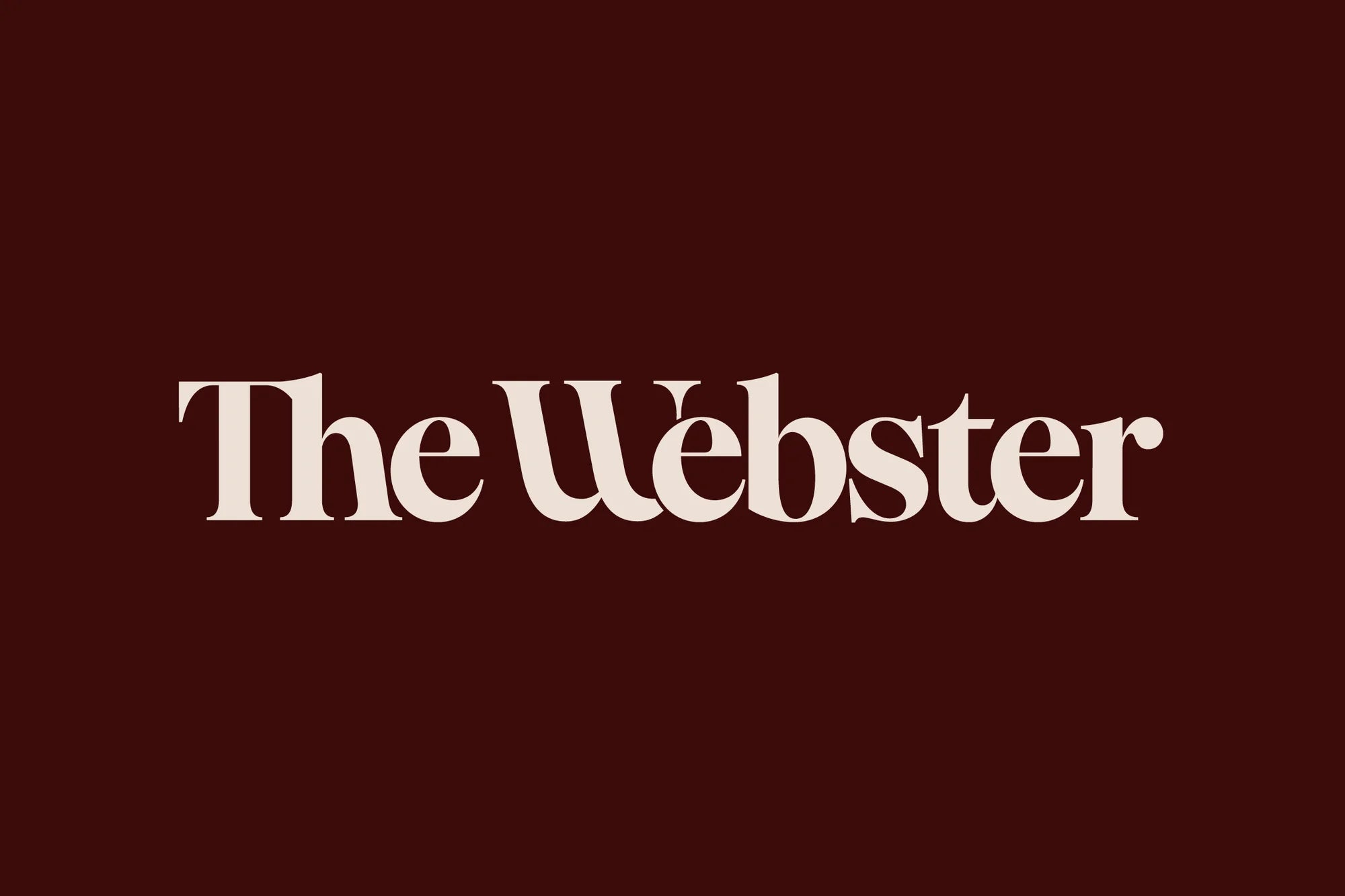
01-20 designs The Webster’s brand on presence, wonder and connection.
London-based agency 01-20 was commissioned to create its brand positioning, identity and content, along with a set of bespoke illustrations by Debora Szpilman. The brand spans two cities, with each property shaped by its neighbourhood while sharing a cohesive identity.
The identity revolves around an idea 01-20 calls “the magic of presence.” “It emerged very early in the process,” explains Senior Partner Carla Pia Sutil. “We were observing a wider cultural tension: people are more connected than ever digitally, yet often less emotionally or socially present. Hospitality has become increasingly transactional or performative, particularly within luxury, and we wanted The Webster to push against that.” For the creative direction, the studio looked to Gabriel García Márquez, the Colombian writer associated with magical realism – the literary genre that takes a grounded, real setting and introduces subtle moments of wonder. Márquez stayed at the original Webster Hotel in New York, a biographical thread that gave 01-20 its creative anchor.
Translating a literary genre into a visual system carried an obvious risk, and Pia is direct about how the studio held the line. “We never wanted magical realism to become a superficial visual gimmick or something overly theatrical. The approach was always rooted in reality first.” The team began with the actual buildings, their locations, their literary connections and architectural character, then layered subtle intrigue through colour, typography, art direction, illustration and tone. Márquez supplied the spirit of the work, with the world of Charles Dickens informing the brand’s more eccentric, English character.
The wordmark is where the concept is front and centre. The Webster is set in a high-contrast serif, drawn from the early 20th-century typography of New York and London publishing culture, the newspapers, journals and literary institutions of the period. In the ‘We’ lockup, the ‘W’ is built from two overlapping ‘U’ forms. “This subtly reinforces ideas of togetherness, exchange and collective presence,” Pia details. “It reflects this notion of a meeting of minds, which became central to the identity system.”
Typography, colour and image direction extend the same balance of refinement and warmth. The palette consists of terracotta, oxblood and soft off-whites, drawing from historic interiors, literary salons, old publishing houses and the personalities behind the brand, with the earthy tones referencing the buildings and brighter accents carrying the spontaneity Pia associates with García Márquez. “Warmth was essential from the beginning. We wanted The Webster to feel human, social and emotionally inviting rather than cold, overly minimal or overtly luxurious.”
Szpilman’s commissioned illustrations sit alongside found photography and a moodboard-style collage language. “Her work has a social quality to it; expressive characters, intimate moments, a sense of movement and interaction,” Pia explains. The studio rationed her work carefully, reserving illustration for moments where it wanted to heighten intrigue and leaning on photography to keep the brand grounded in real people and real environments.
Much of the brand comes alive through what happens inside the hotels. The Webster newspaper sits in reception as a nod to the Overseas Press Club history of the Manhattan building, and the programming leans into each city’s social and cultural calendar. Book launches, readings, music and art events run through the hotels, alongside a social scene built with the local tastemakers who shape each neighbourhood, drawing on the best of the surroundings and staying rooted in them. A literary thread runs through it all, fitting for a brand that shares its name with Noah Webster, the lexicographer. “The intention was never to create gimmicks, but to introduce small moments of meaning and surprise that enrich the stay without interrupting it,” Pia notes.
The brief that set all of this in motion came from Masterworks. “Create a hospitality brand that feels culturally rich, socially magnetic and genuinely distinctive in an increasingly crowded market,” Kendall Viola, VP of Marketing, tells us. “Ultimately, the brief was simple: create places people don’t want to leave.” Seeing the framework land in physical space has been the part Viola points to, from a dramatic lobby mural in London to flooring made from reclaimed marble offcuts, each property interpreting the same spirit through its own history. “The Webster was never intended to be a formula. It was designed as a framework for storytelling.”